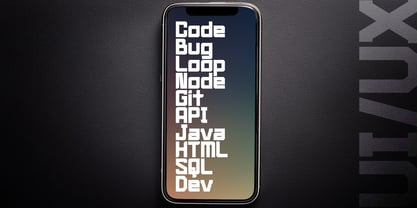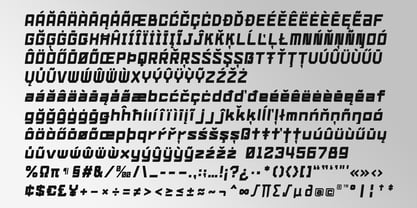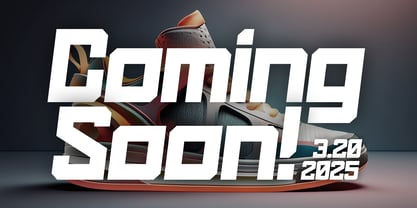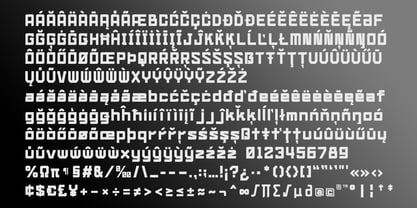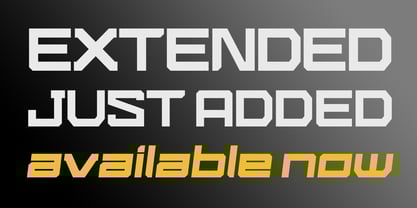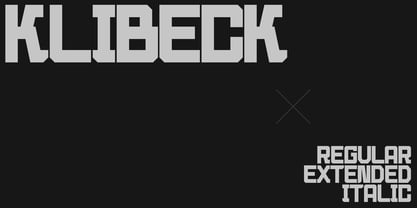
Klibeck
by Outerend
The Klibeck Font Family was designed by Taka Ikari and published by Outerend. Klibeck contains 4 styles and family package options.
Introducing “Klibeck” — a bold, blocky typeface that commands attention. With sharp lines and a brutalistic aesthetic, it draws inspiration from the dynamic angles and strong geometric forms of Brutalism architecture. Perfect for advertising, headlines, and logos, Klibeck delivers an impactful presence, making a statement with every letter. Its sleek, modern design brings a cutting-edge energy to any project.